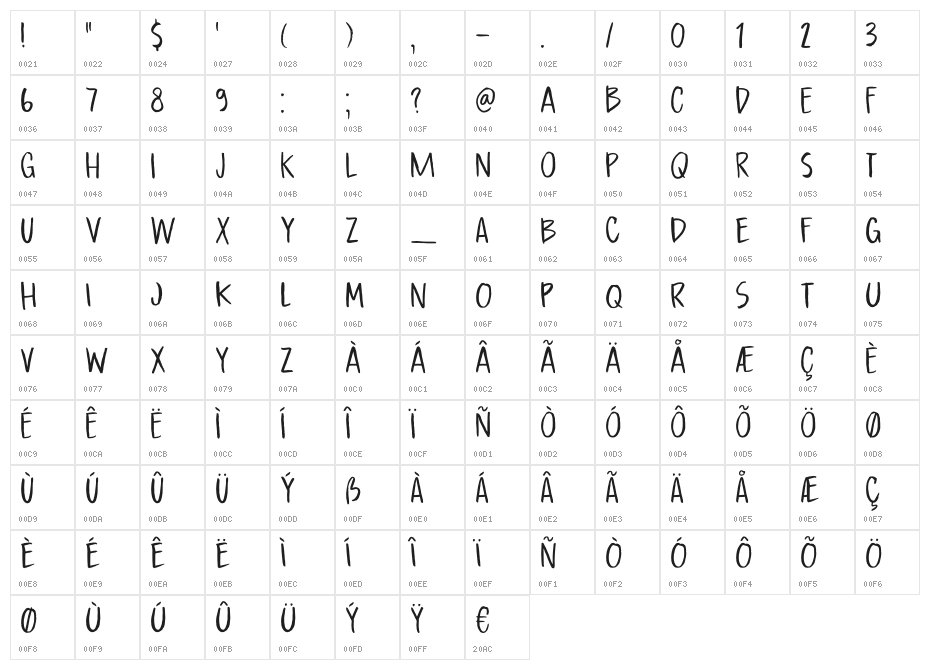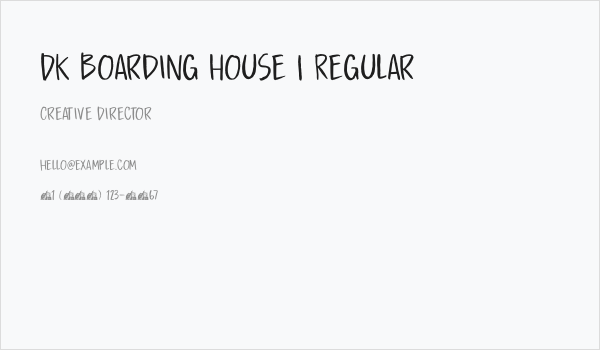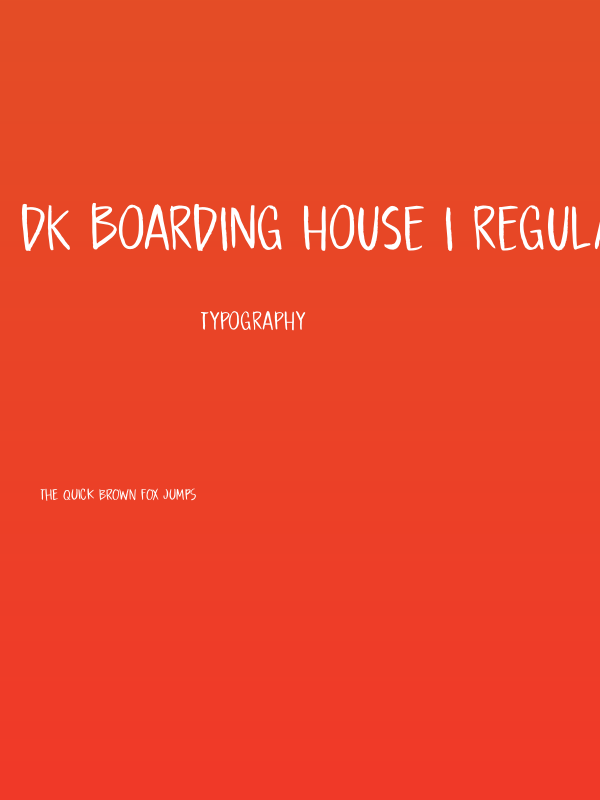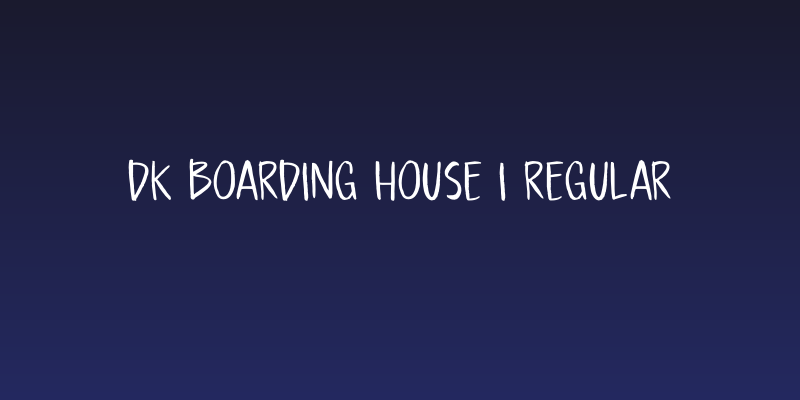
DK Boarding House I Regular Font
DK Boarding House I Regular Description
This font features a bold, hand-drawn style with a slightly rough texture, giving it a rustic and organic feel. The uppercase letters are tall and narrow, with uneven strokes that add a sense of movement and energy. The lowercase letters maintain the same hand-crafted aesthetic, with a consistent height that complements the uppercase set. Numbers are similarly styled, with a playful yet legible appearance. Special characters are included, maintaining the same artistic flair. This font is ideal for projects that require a personal touch or an artistic edge, such as posters, invitations, or branding materials.
Proposed ProjectsIdeal for posters, invitations, branding materials, and any project needing an artistic touch.